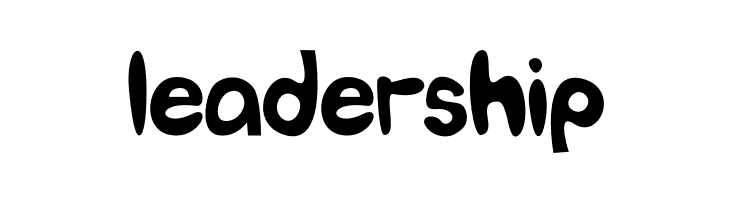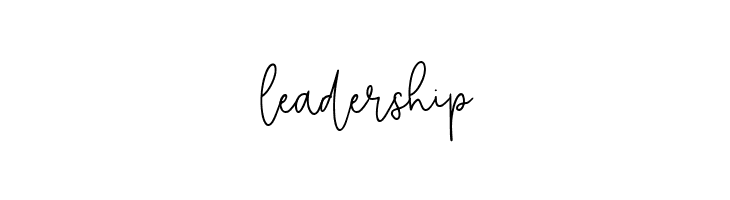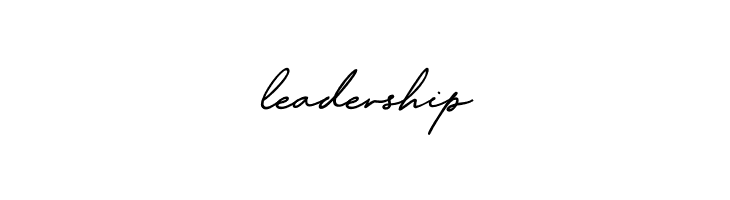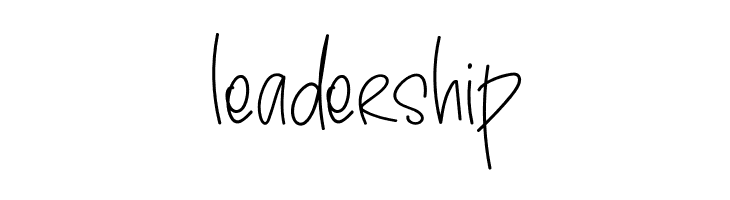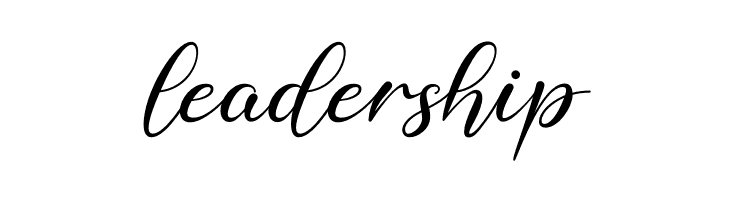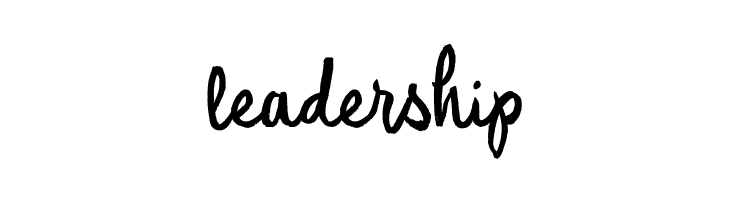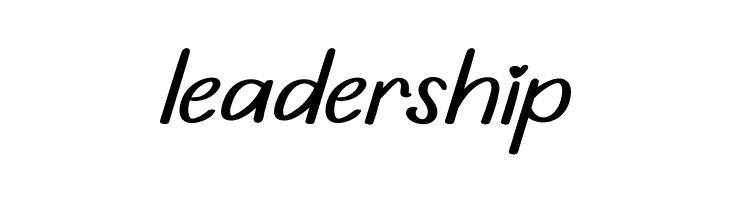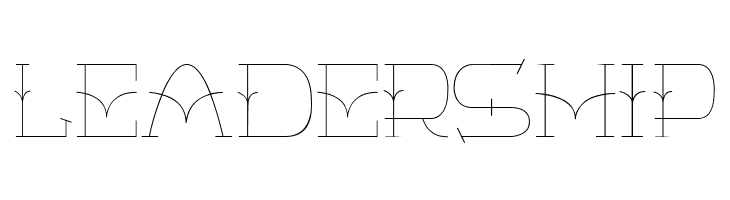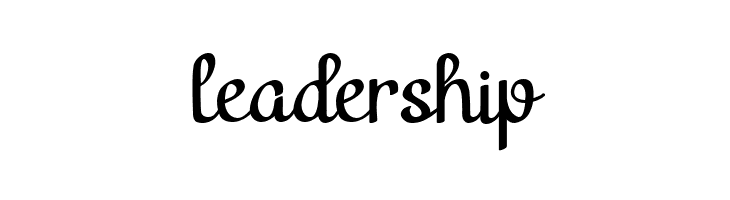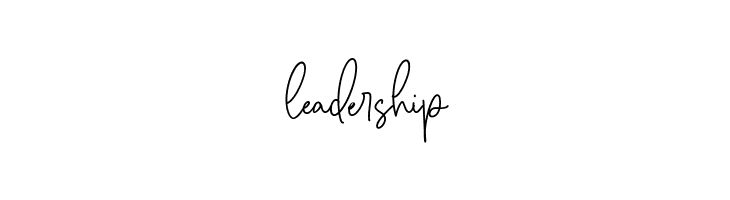
A playful, bold font with a hand-drawn, whimsical style.
A playful and elegant handwritten font with smooth, flowing lines.
A bold, playful handwritten font with rounded edges and dynamic style.
A cursive, handwritten font with elegant, flowing lines.
A whimsical, swash-style font with fluid, interconnected strokes.
A bold, playful script font with smooth, flowing curves and a handwritten style.
A bold, brush-style font with dynamic and expressive characters.
A playful, casual handwritten font with dynamic, flowing strokes.
A graceful and elegant script font with flowing, cursive characters.
A bold, expressive brush script font with dynamic strokes and a hand-painted look.
A bold, expressive brush-style font with dynamic, hand-drawn strokes.
A modern, flowing script font with elegant, slender uppercase and rounded lowercase letters.
A decorative font with geometric lines and curves, offering a futuristic and artistic style.
A casual, handwritten script font with fluid, connected letters.
A playful and artistic script font with flowing, connected letterforms.
A whimsical, handwritten cursive font with elegant, flowing letters.
A whimsical, handwritten font with a playful and elegant style.
A sleek, ultra-thin font with a modern and elegant design.
A dynamic, cursive font with flowing, handwritten style and elegant loops.
A flowing, elegant script font with connected, cursive characters.
A modern, geometric font with a striped, linear design.
A dynamic and fluid script font with elegant, flowing letterforms.
A playful and elegant handwritten font with a dynamic slant.
A playful, casual handwritten font with dynamic strokes and organic flow.
A dynamic, expressive handwritten font with fluid, cursive strokes.
A lively and dynamic script font with fluid, connected letterforms and varying stroke widths.
A bold, geometric font with a modern and cohesive design.
A playful, bold font with rounded, thick characters and a whimsical style.
A bold, playful font with a hand-drawn, casual style.
A lively handwritten font with fluid strokes and a casual style.
A playful, handwritten font with smooth, rounded edges and a casual style.
A bold, dynamic script font with fluid, energetic strokes.
A playful, handwritten font with tall, narrow letters and a casual style.